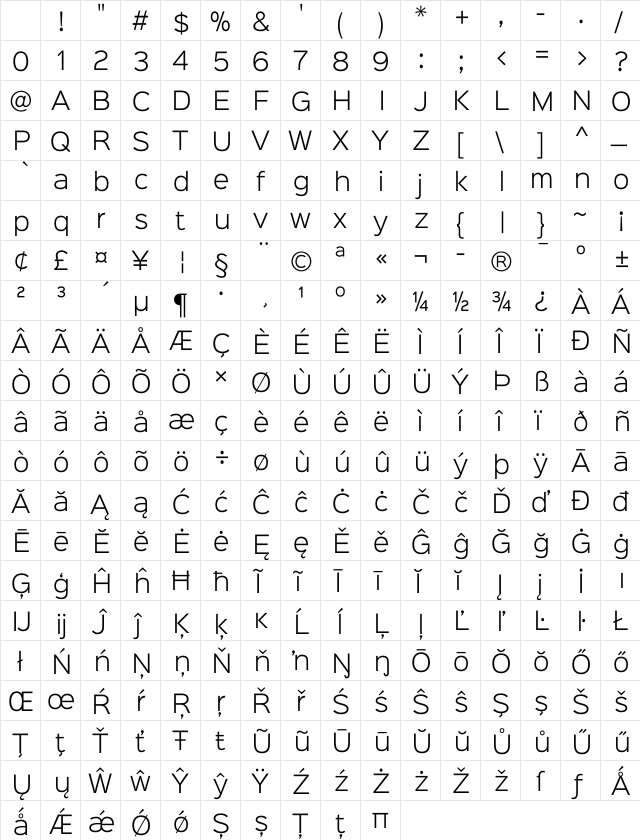
Complete Sinkin Sans 300 Light Regular glyph index. Displaying only characters natively supported by Sinkin Sans 300 Light Regular font.
Sinkin Sans 300 Light is a composed and adaptable typeface that performs quietly and consistently across a wide range of design contexts. Its slender proportions lend an understated elegance to any composition.